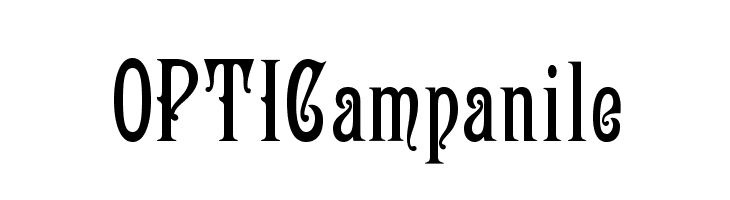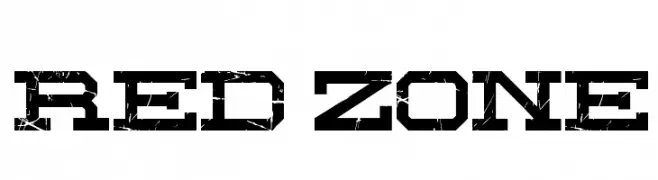
A tall, narrow, and modern sans-serif font with a sleek and minimalist style.
A bold and italicized font with a dynamic and elegant style.
A geometric, modern font with a square-like structure and sharp angles.
A bold, italicized font with a modern and dynamic style.
A bold, geometric font with a modern, futuristic style.
A graffiti-inspired font with bold, irregular characters and a rebellious, urban style.
A bold, hand-drawn font with a brush-like, graffiti-inspired style.
A bold, geometric font with outlined characters for a striking visual impact.
A playful, decorative font with bold, rounded edges and a whimsical, hand-drawn style.
A whimsical and decorative font with curly, artistic elements.
A casual, handwritten font with fluid and natural strokes.
A bold, expressive handwritten font with dynamic strokes and a lively appearance.
A modern, geometric font with consistent stroke width and balanced characters.
A playful, bold font with rounded edges and a hand-drawn style.
A modern, light sans-serif font with clean lines and excellent readability.
A playful, handwritten font with rounded edges and a casual, friendly style.
A playful, balloon-like font with bold, rounded characters.
A playful, hand-drawn font with outlined characters and a casual style.
A classic and elegant script font with flowing, connected letterforms.
A playful, rounded font with smooth curves and a friendly appearance.
A bold, extra-wide outline font with a modern and geometric style.
A semi-bold serif font with moderate contrast and elegant styling.
A bold, high-contrast serif font with an elegant italic slant.
A bold, grunge-style font with a distressed, textured appearance.
A bold, italic serif font with elegant and dynamic styling.
A modern, bold, and italicized font with a sleek and dynamic appearance.
A clean, modern sans-serif font with consistent stroke width and excellent readability.
A bold, italicized font with a futuristic and dynamic design.
A playful, casual handwritten font with smooth, flowing lines.